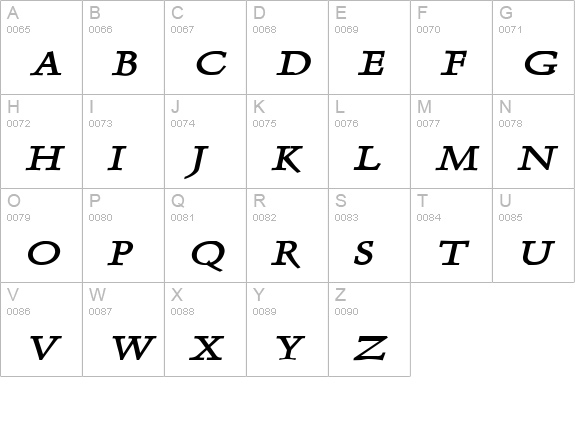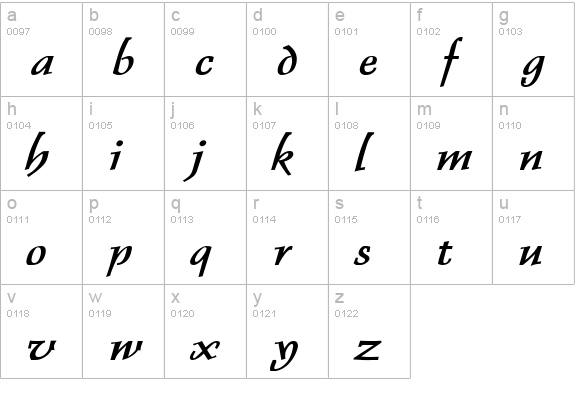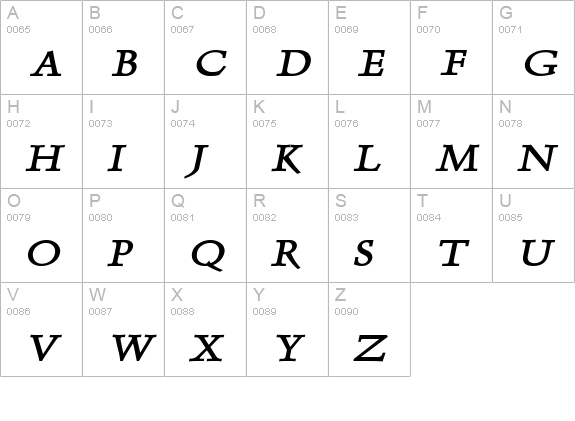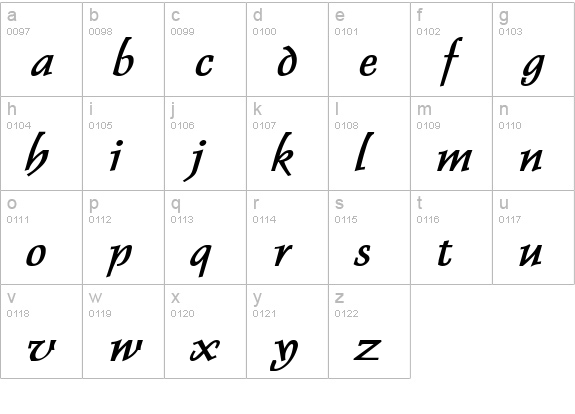
Dolphin Wide Bold Italic is a strong, high-contrast, extended-width, italic variant in the Dolphin typeface family \xE2\x80\x94 well suited to headlines, attention-grabbing titles, and strong calls-to-action.
Dolphin Wide Bold Italic font is a striking and modern typeface that exudes elegance and sophistication. Its bold and italicized design makes a strong statement while maintaining a sense of fluidity and grace. This versatile font is perfect for a wide range of design projects, from branding to editorial layouts. Best of all, Dolphin Wide Bold Italic font is available for free download at FontsMarket.com. This means you can easily access this stunning font and incorporate it into your projects without any cost. Don't miss out on the opportunity to enhance your designs with the beauty and versatility of Dolphin Wide Bold Italic font. Download it today and elevate your creative work to new heights.